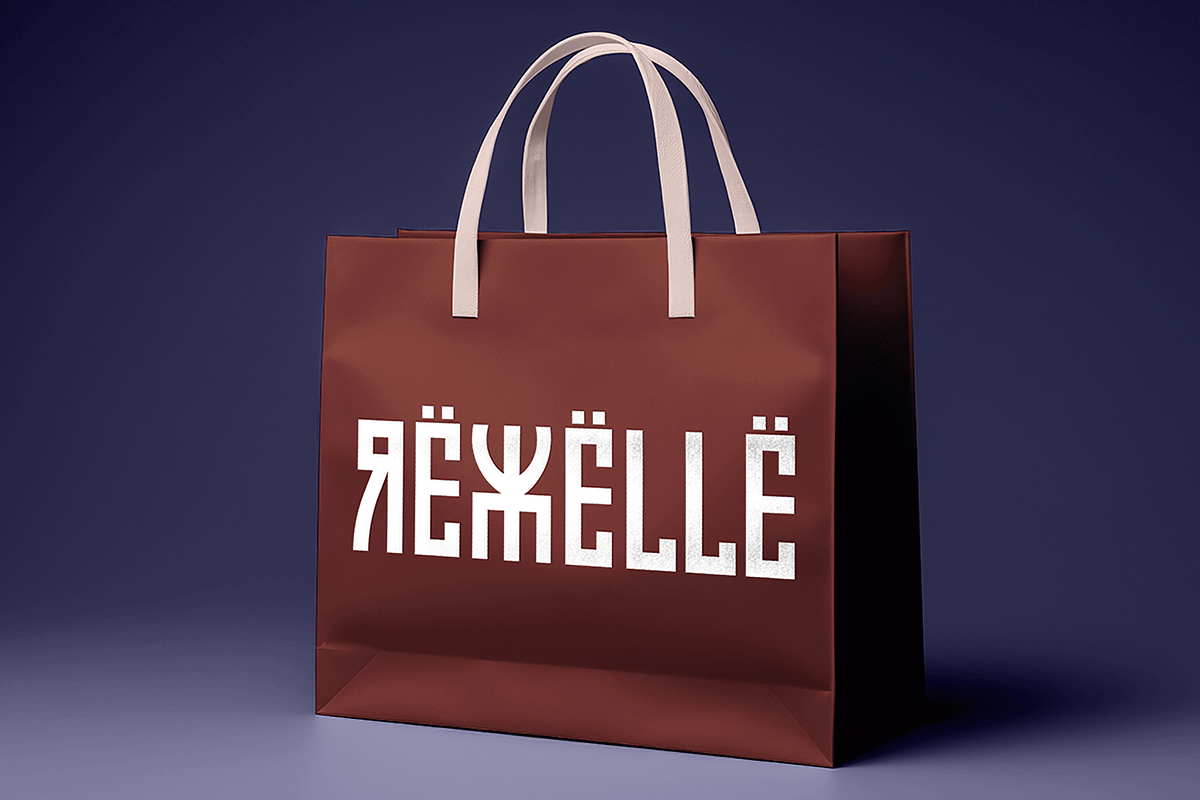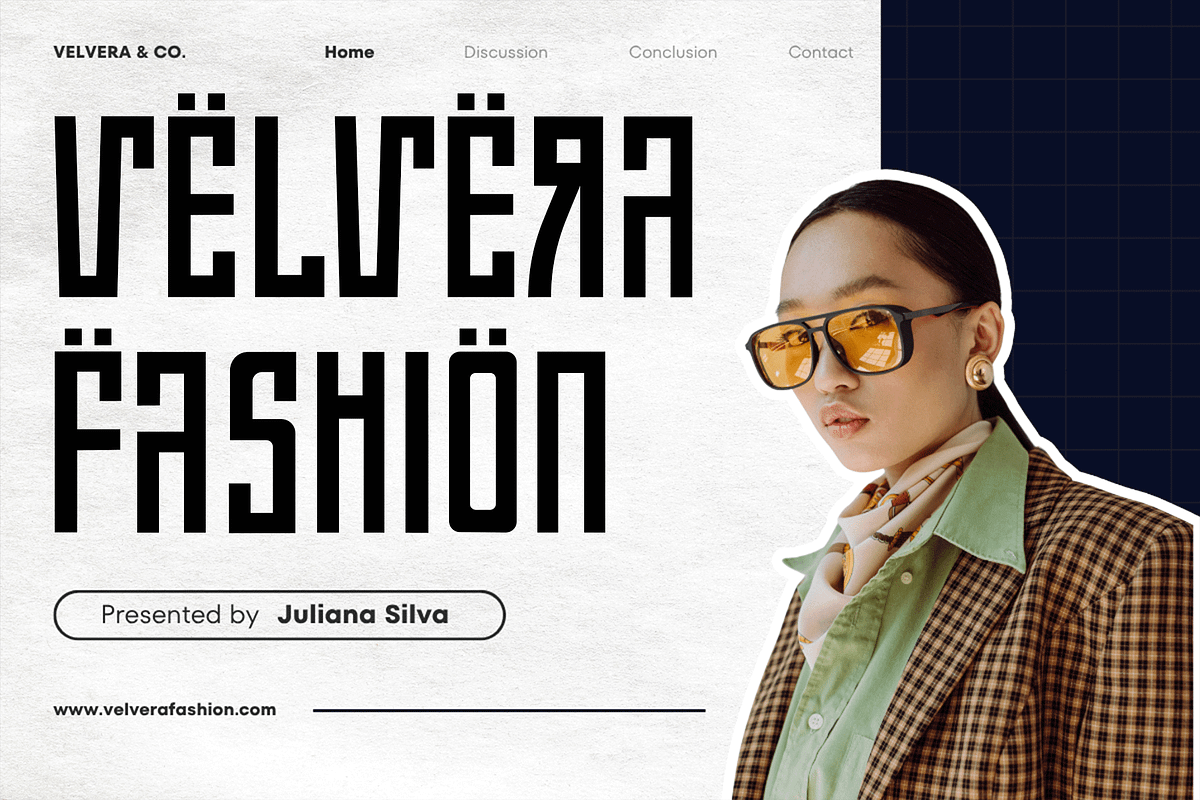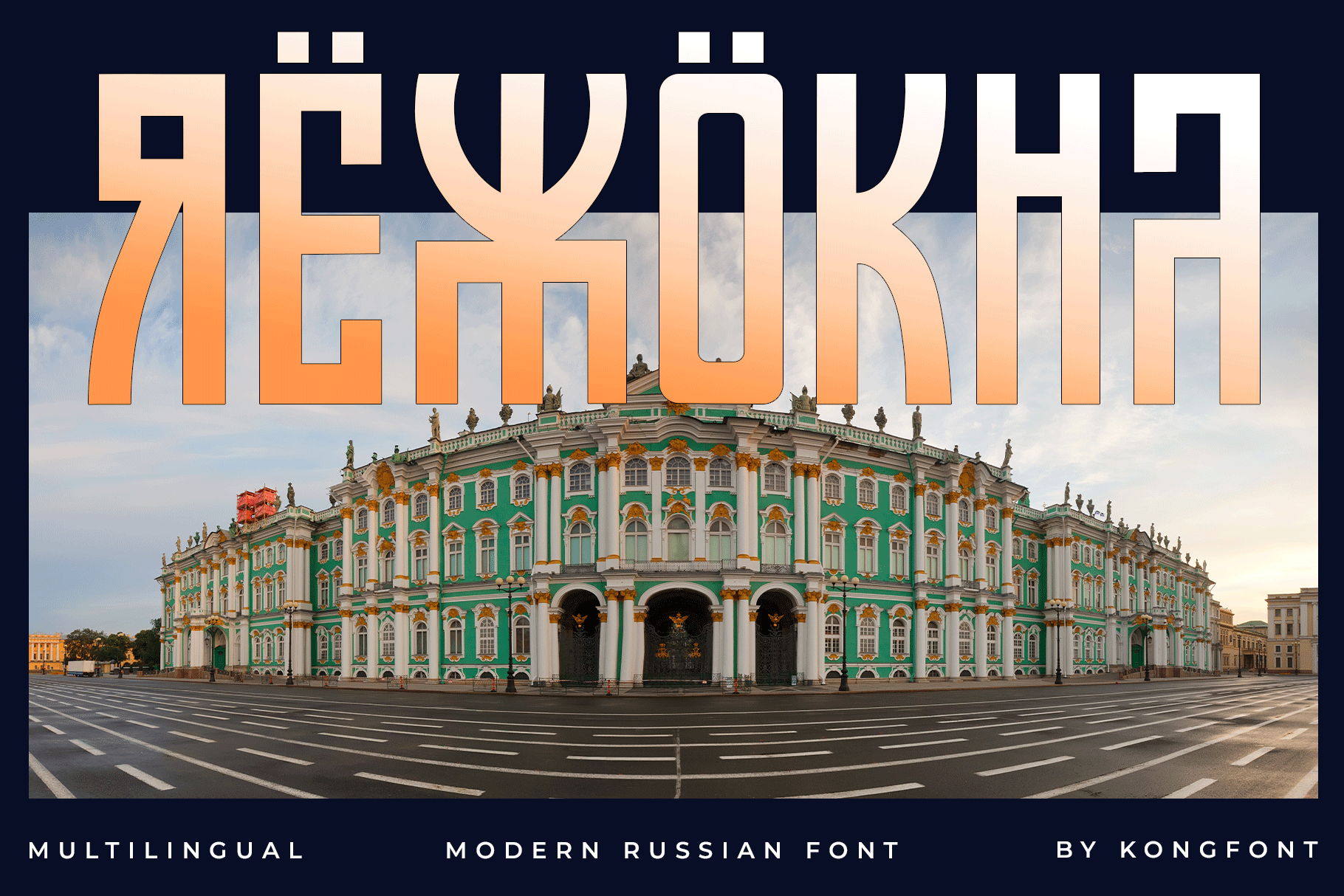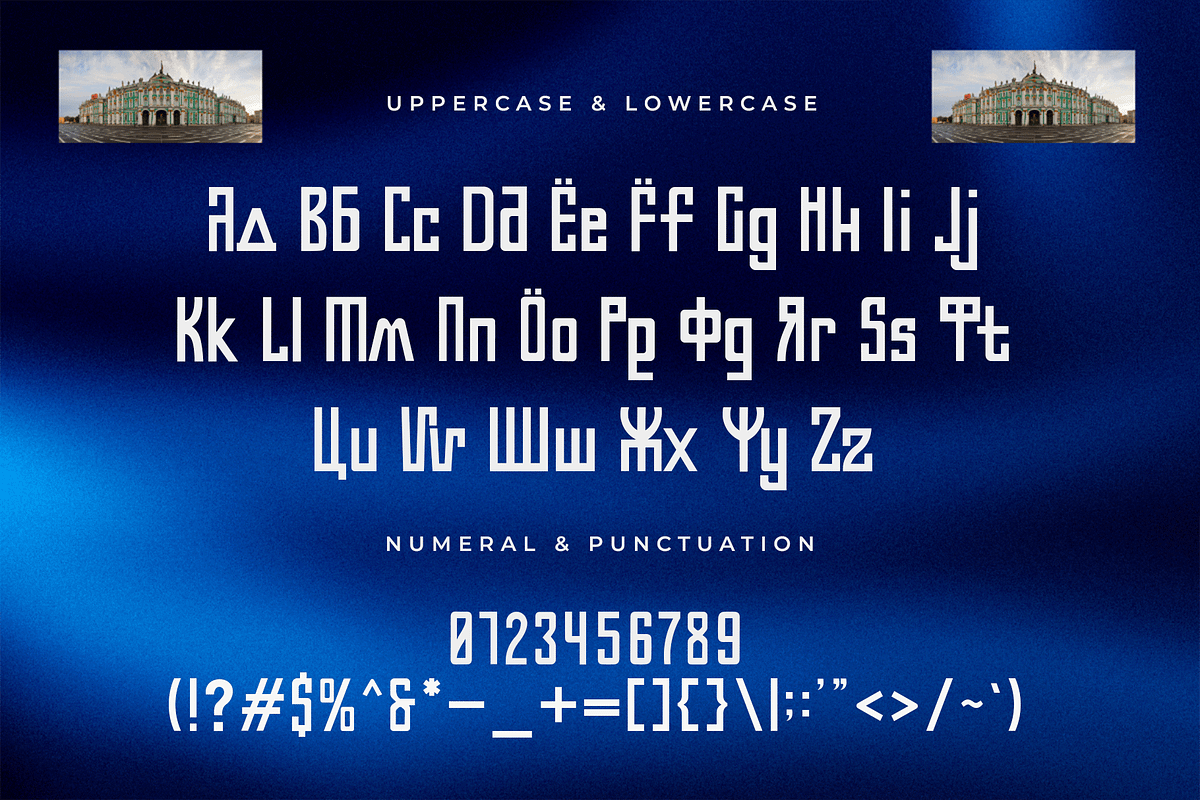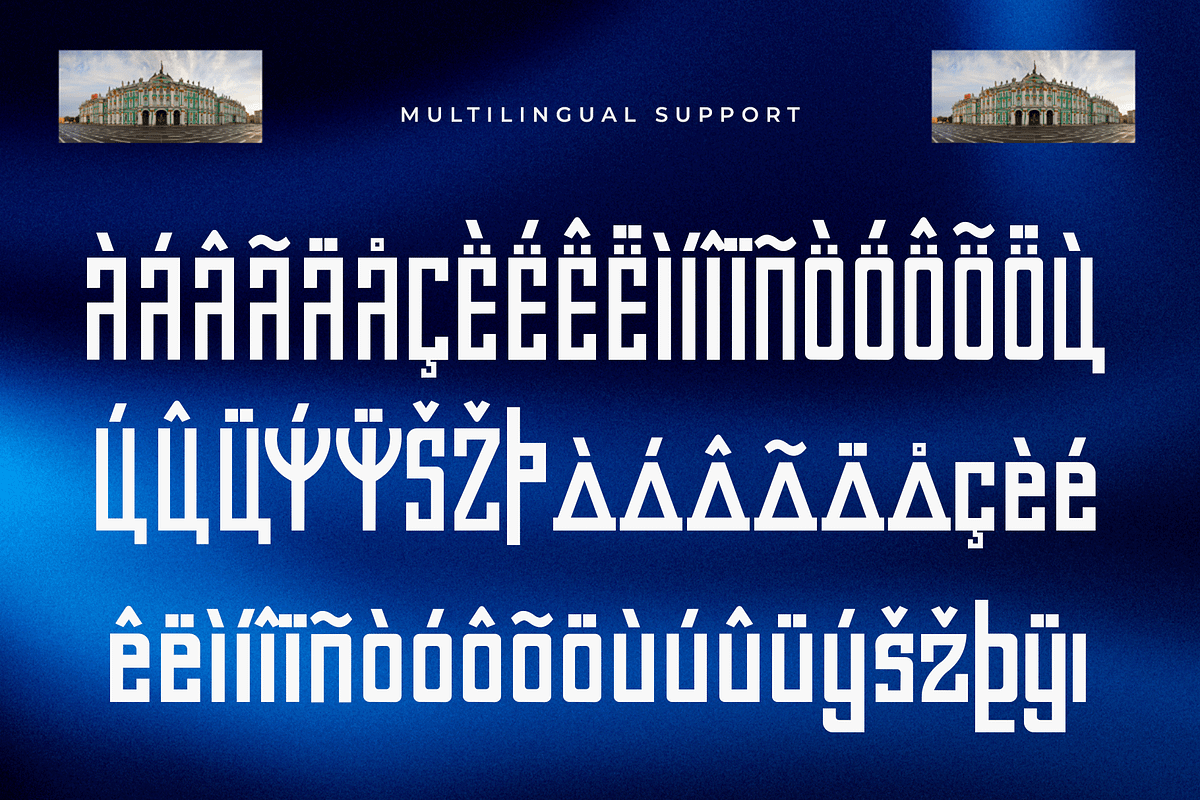
Rexokha – Modern Russian Font
Introducing Rexokha, a modern Russian font that merges the power of traditional Cyrillic design with the sleekness of contemporary typography. Designed with bold strokes and refined details, Rexokha embodies both authority and sophistication making it ideal for projects that demand a strong visual presence.
Perfect for branding, editorial titles, logos, posters, and cultural designs, Rexokha brings a touch of Eastern European essence into modern visual storytelling. Its clean structure and balanced proportions ensure excellent readability across print and digital media.
Whether you’re crafting a premium brand identity or a striking headline, Rexokha delivers a professional, modern look rooted in rich Russian typographic heritage.